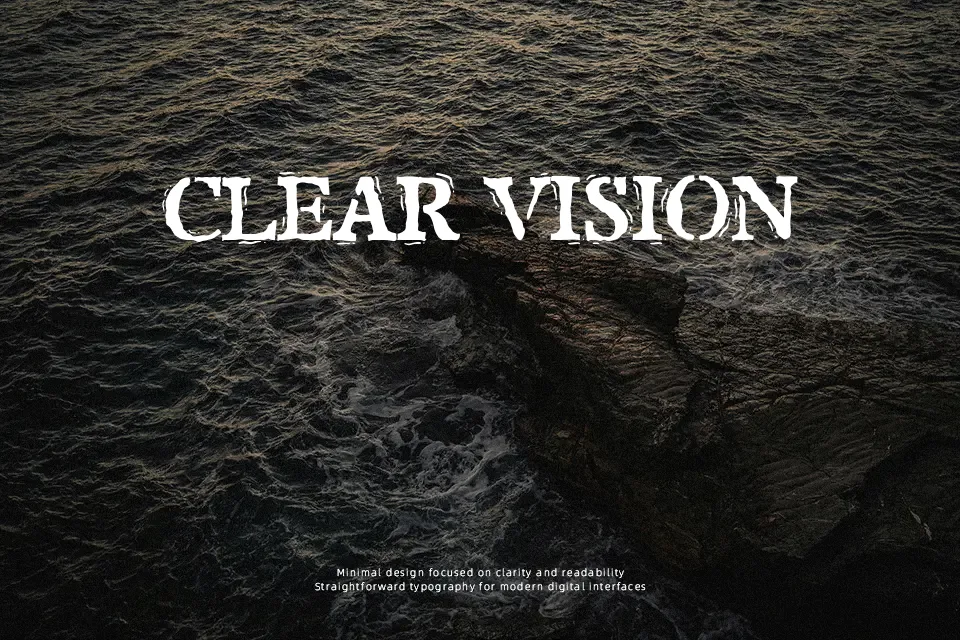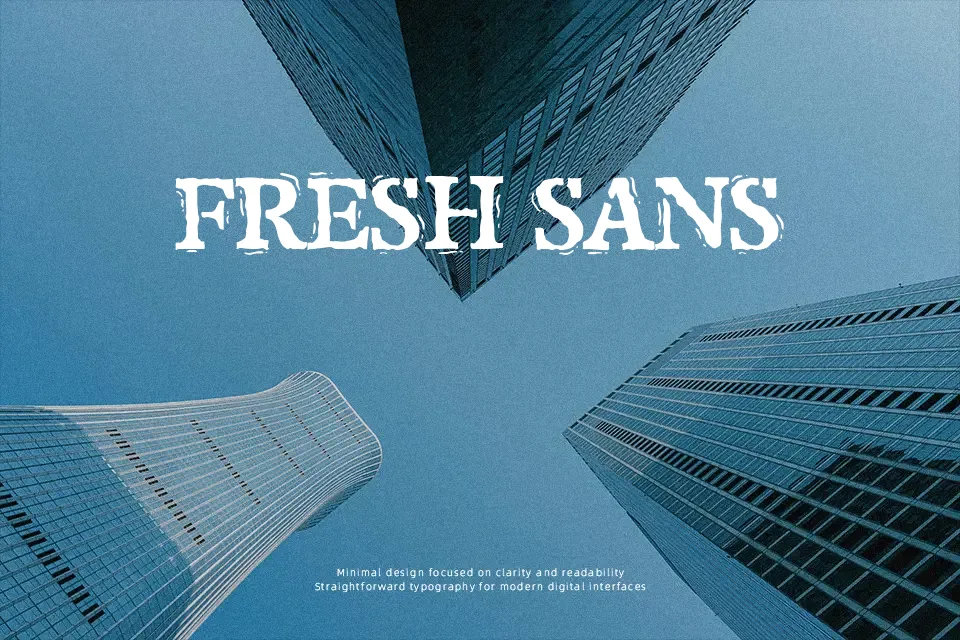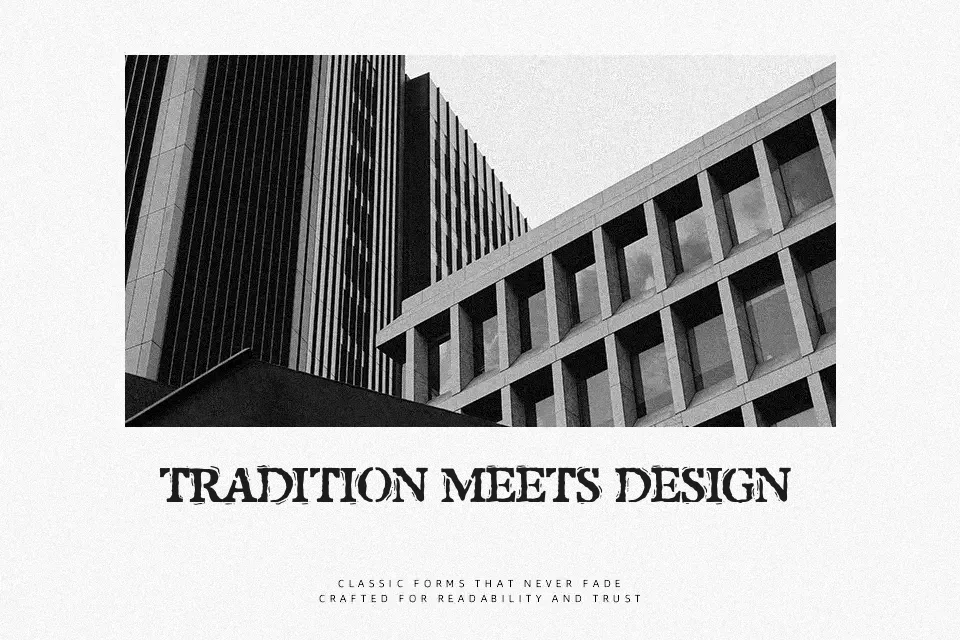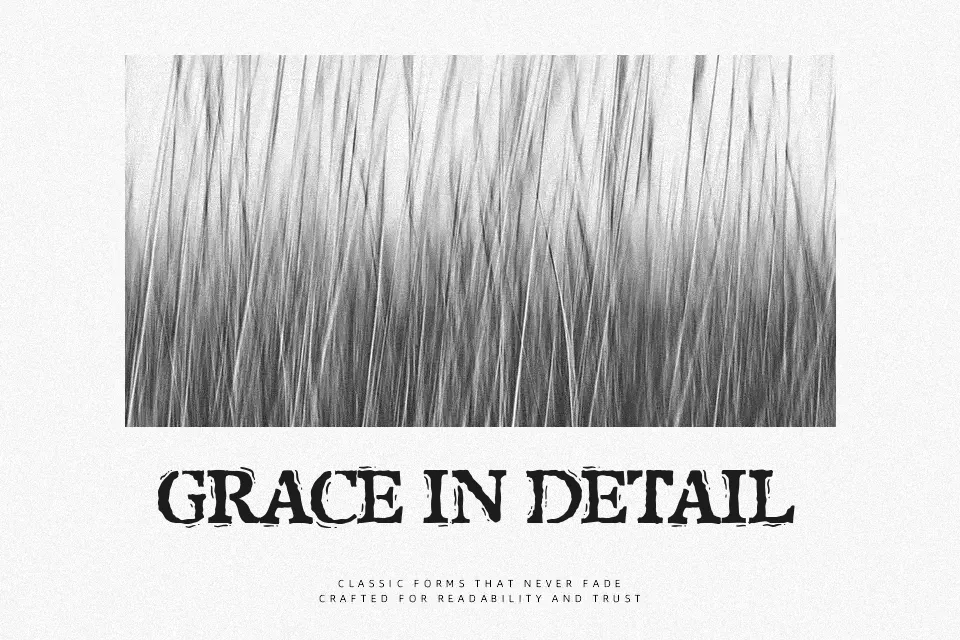
Showthat Font
Showthat Font commands immediate attention through rugged serif structures, uneven stroke edges, and balanced character widths. Its letterforms feature solid weight distribution with distressed terminals, establishing a gritty display rhythm across prominent headline arrangements. Generous spacing preserves character independence and prevents heavy textured contours from colliding when set at large scale. The typeface excels in outdoor event banners, streetwear graphics, and cinematic title cards seeking an aged aesthetic. Conversely, the dense eroded detailing compromises clarity when scaled down, rendering the design ineffective for continuous body paragraphs, data tables, or compact user interface labels.
music festival posters,streetwear apparel graphics,craft packaging labels,cinematic title cards
long paragraph text,mobile interface labels,dense editorial layouts,technical documentation
Perfect for headline, logo, and music, with a bold and decorative style.